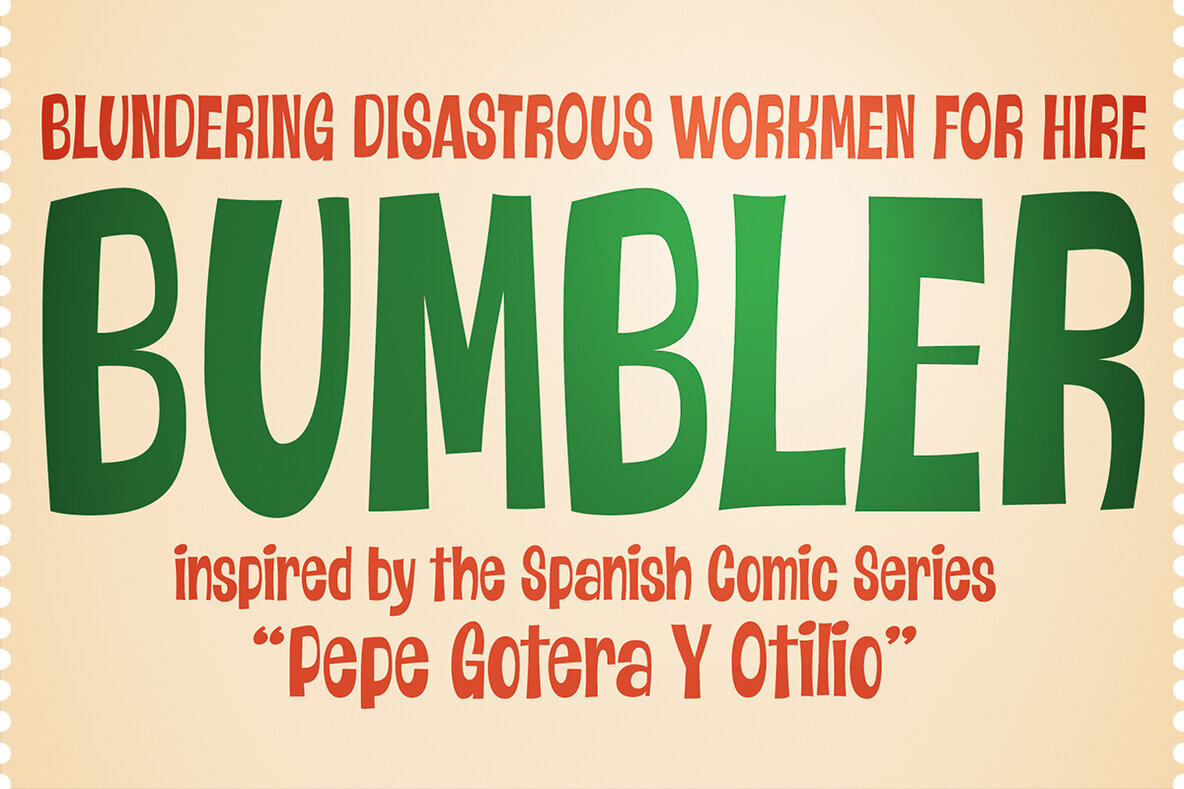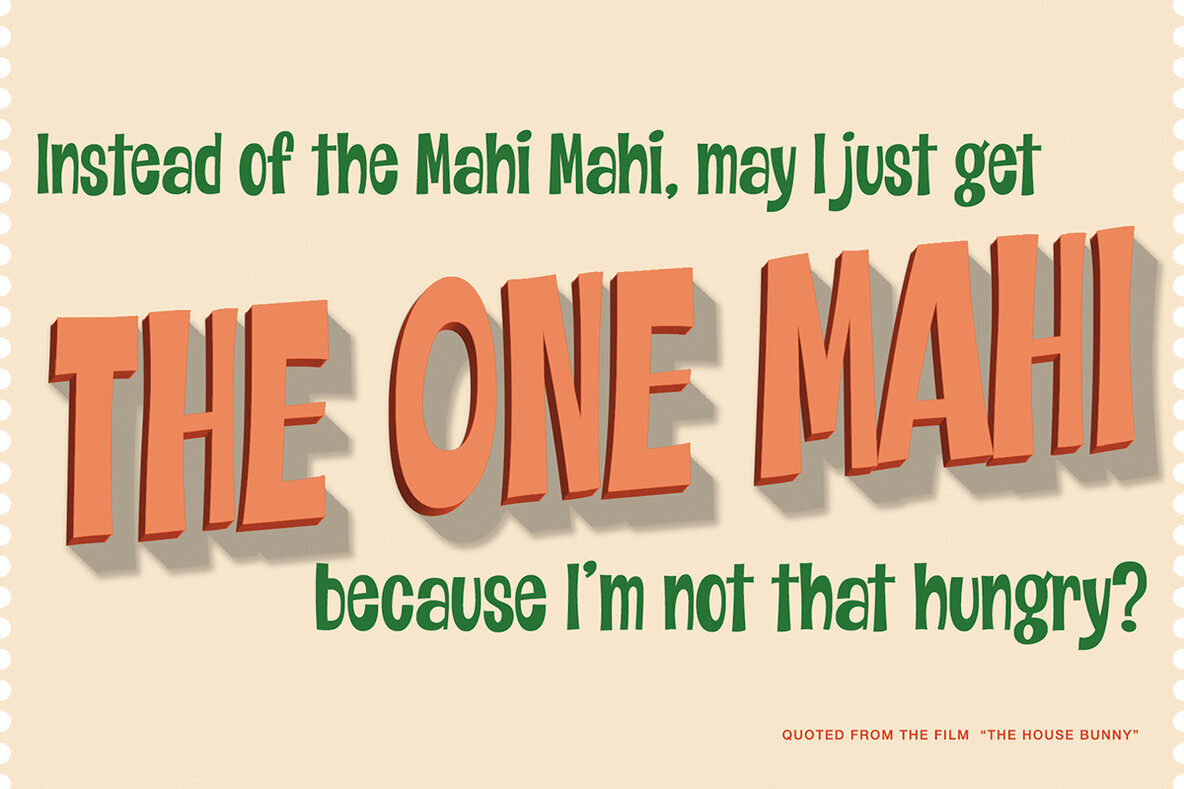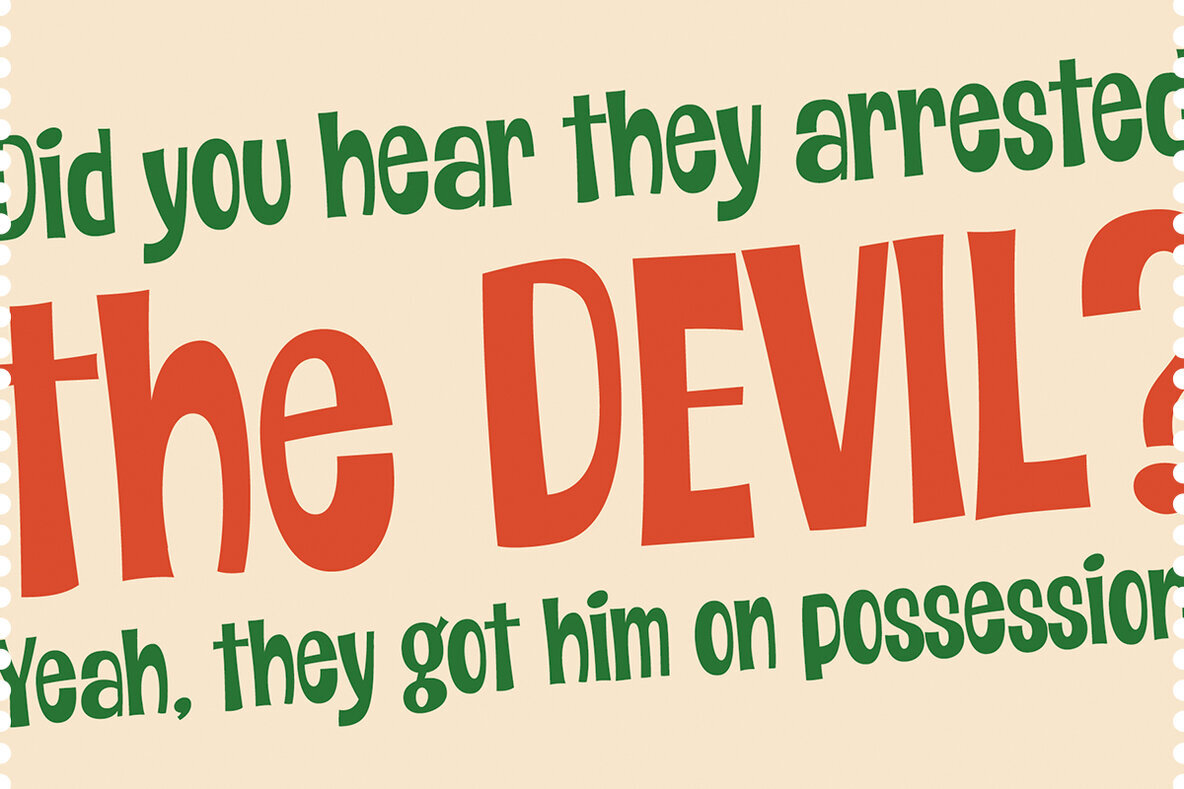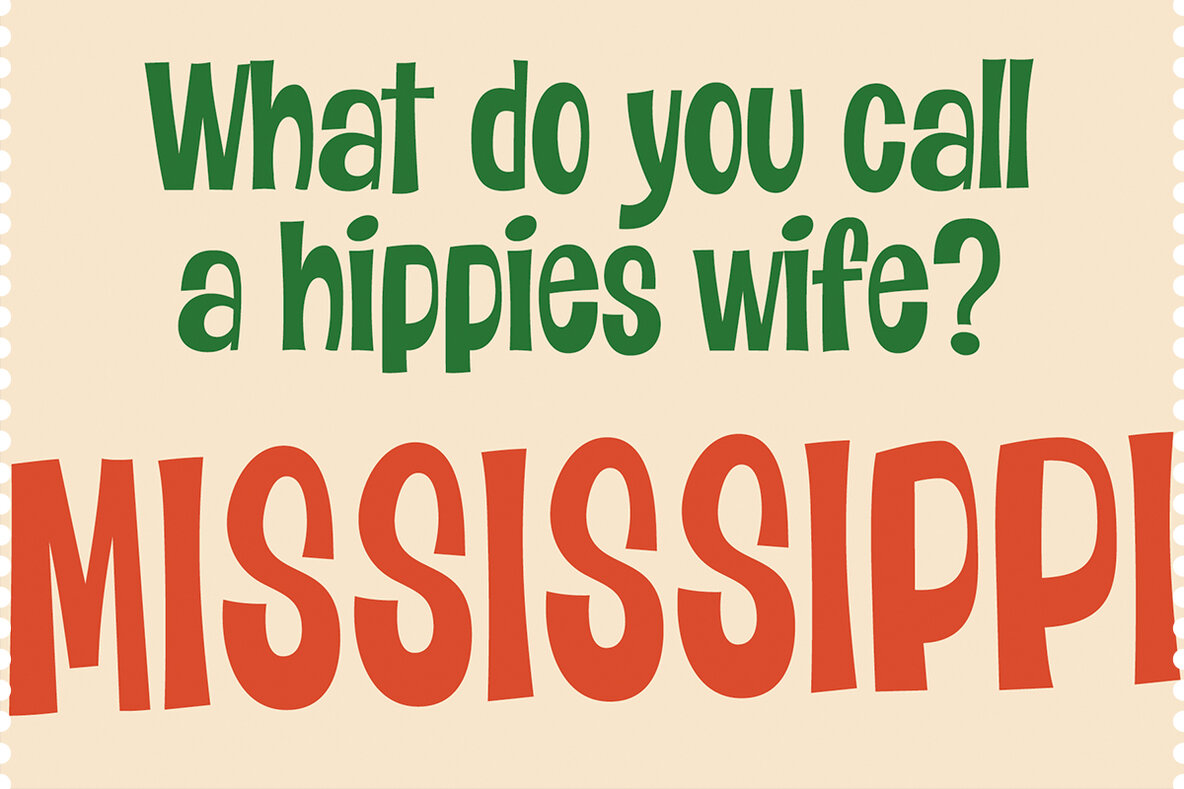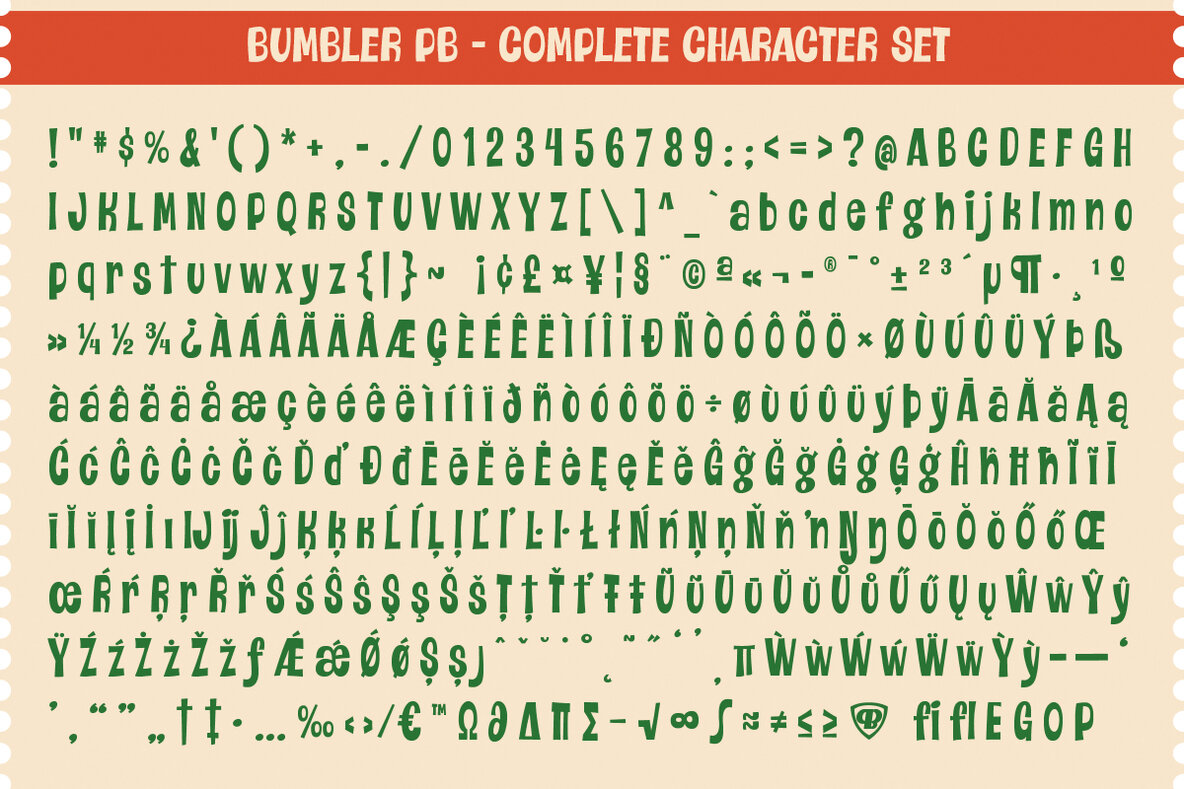
Bumbler PB
Bumbler PB was inspired by the title lettering on Pepe Gotera y Otilio comics from the late 1960's. The lettering primarily capitals and had an odd shift in visual weight that made it lively and unexpected. This recreation of that lettering style includes both Capitals and lowercase, and a full extended Latin character set. While Pepe Gotera and Otilio were somewhat slackers and bumbling fools, this typeface is made to pull its own weight for your design pleasure.